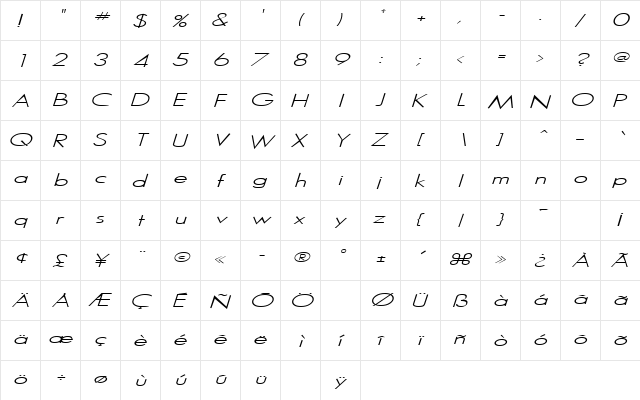
Alden Italic Regular
Design Context for Alden Italic Typeface
Alden Italic takes a measured approach to typography — its balanced proportions and neutral character make it a reliable workhorse for both digital and print work. Its italic angle brings a sense of urgency and motion to the letterforms.
Pro Tip: Try Alden Italic for annotation and caption copy alongside an upright companion — the contrast in angle creates a dynamic but ordered typographic system.